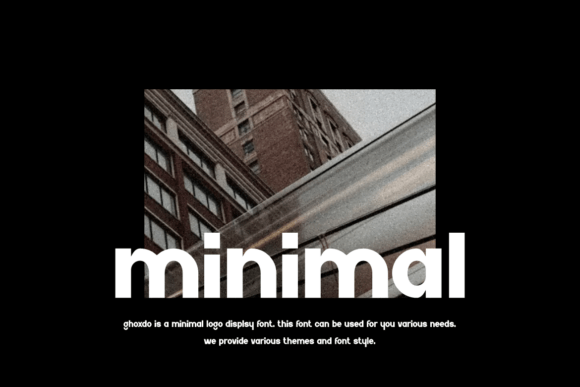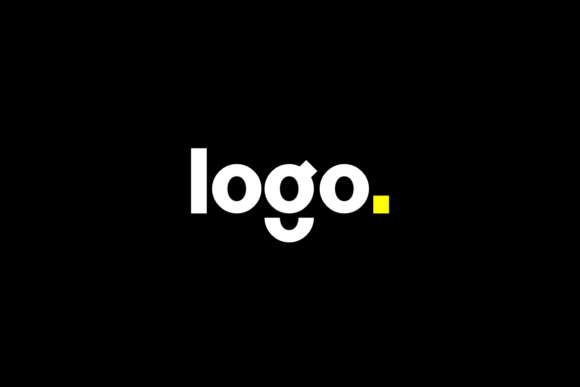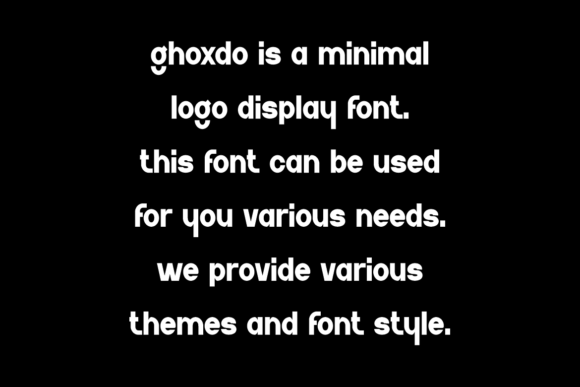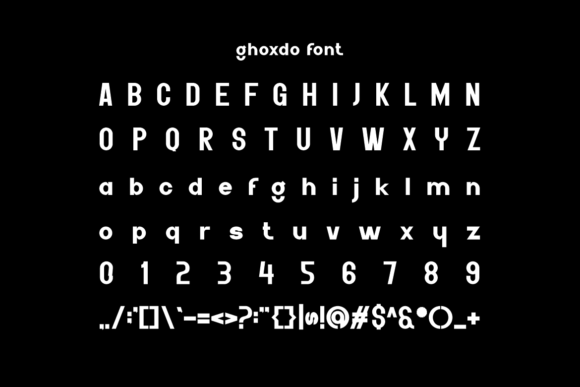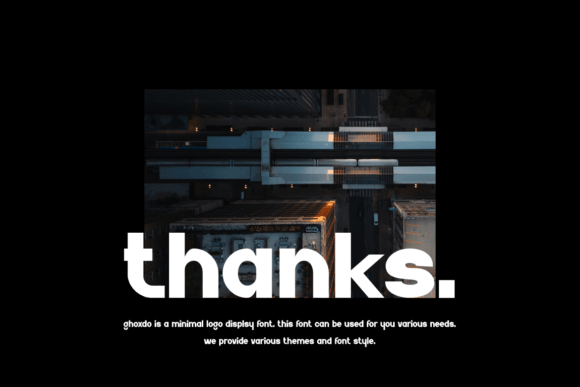
Introduction to Ghoxdo Font
Have you ever stared at a blank canvas, waiting for inspiration to strike? For designers, this moment is a familiar friend – and a daunting foe. But what if you had the perfect tool to unlock your creativity and bring your vision to life? Enter the Ghoxdo Font, a high-quality design resource that’s set to revolutionize your next project.
This versatile sans serif font boasts a clean and modern aesthetic, making it a valuable addition to any designer’s toolkit. With its simple lines and shapes, Ghoxdo Font is perfect for both print and digital use, offering a fresh and minimal look that’s sure to impress. And the best part? It’s available for free download, giving you the freedom to experiment and push the boundaries of your creative project.
Whether you’re working on a logo, headline, or body text, the Ghoxdo Font is a transparent background waiting to be filled with your unique style. So why settle for an ordinary font when you can have a high-quality design resource that’s sure to elevate your work?
Key Features of Ghoxdo Font
- High-quality design resource suitable for various creative projects
- Unique, modern design with a transparent background for seamless integration
- Supports a wide range of languages, including Latin, Cyrillic, and Greek alphabets
Honest Review: Ghoxdo Font
I recently stumbled upon the Ghoxdo Font and I must say, I’m impressed. This free download has been a great addition to my design resource library. I’ve used it for a creative project that required a unique and quirky feel, and the Ghoxdo Font delivered.
Here are some things that work well: ✨
- High-quality glyphs: The font is well-designed and looks great at various sizes and resolutions.
- Transparent background: This makes it easy to use in a variety of design scenarios.
- Unique aesthetic: The Ghoxdo Font has a distinct look that sets it apart from more common fonts.
- Limited language support: The font only includes a basic set of Latin characters, which may limit its use in certain projects.
- No bold or italic styles: While the font’s unique aesthetic is a strength, the lack of bold or italic styles can make it less versatile.
Overall, I’m happy to have the Ghoxdo Font in my design library. While it may not be perfect, its unique look and high-quality glyphs make it a valuable resource for creative projects.
How to Use Ghoxdo Font
The Ghoxdo Font is a versatile and high-quality design resource that can elevate your creative project to the next level. With its unique style and transparent background, it’s perfect for adding a touch of sophistication to your designs.
Tips for Getting the Most Out of Ghoxdo Font
For the best results, use the Ghoxdo Font in conjunction with other high-quality design elements to create a cohesive and visually appealing design.
The Ghoxdo Font is perfect for a variety of creative projects, including logos, branding materials, and marketing materials.